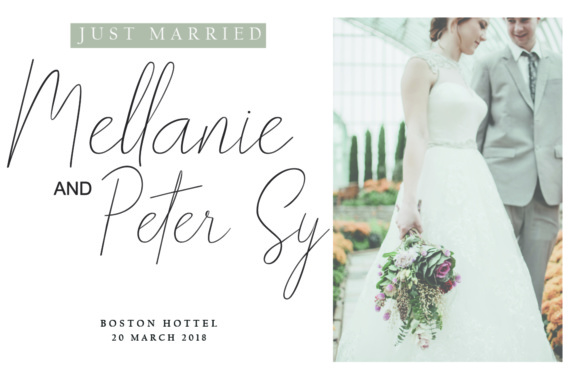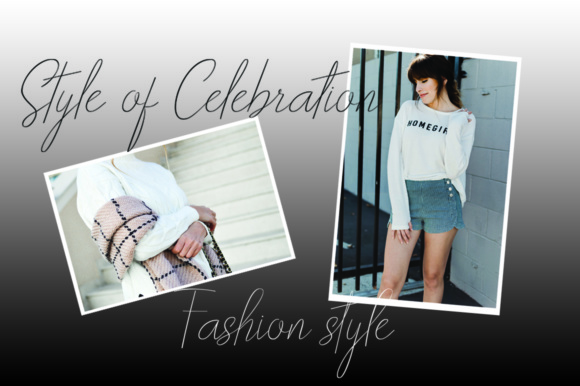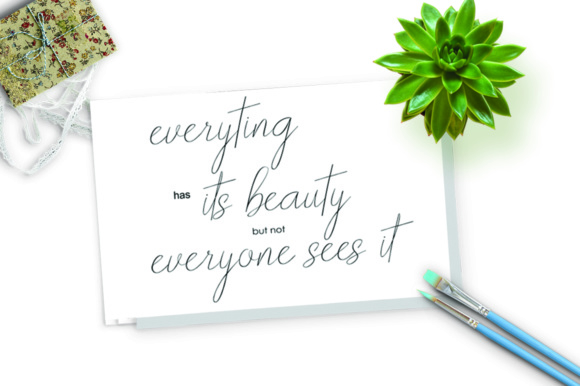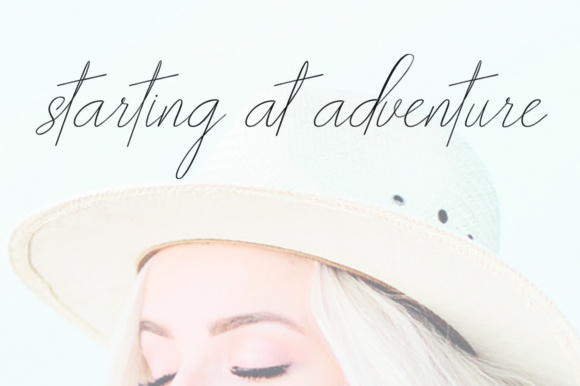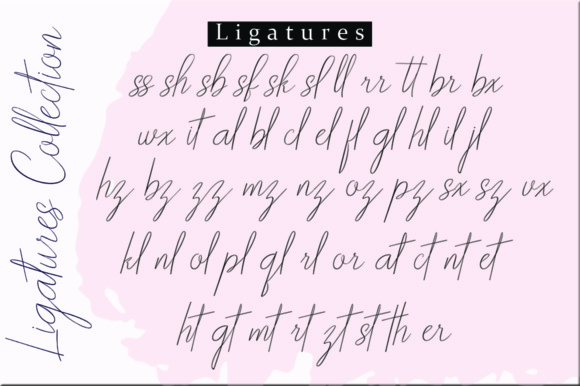
Over the Sunday Font
About Over the Sunday Font
Over The Sunday is a beautiful script font that has a ton of elegance and potential. This font comes with tons of stylistic alternates, so you can craft truly remarkable looking typography for whatever creative project you’re working on.